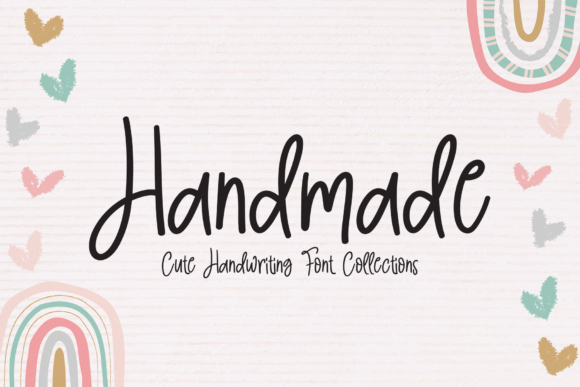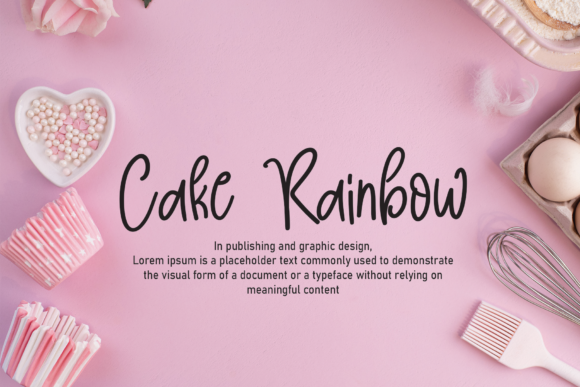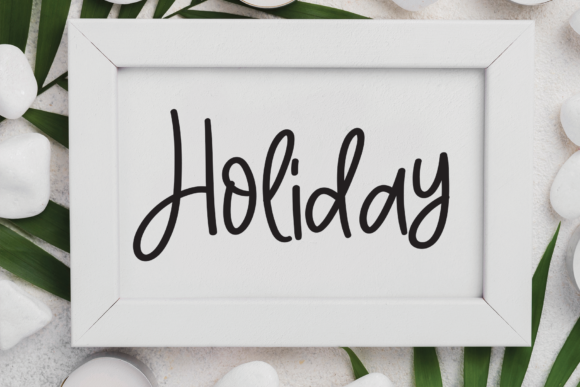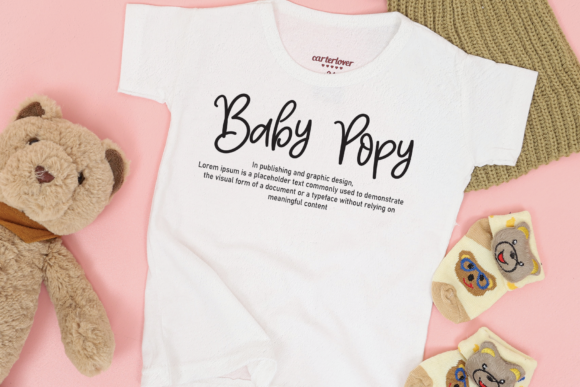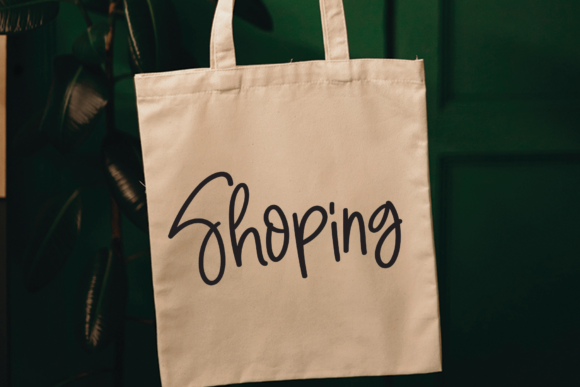
Handmade is a natural and pretty handwritten font that looks perfect for projects that need a personal note. Use it for wall displays, wedding invitations, social media post logos, advertisements, product packaging, product designs, labels, photography, watermarks, invitations, stationery, and more.